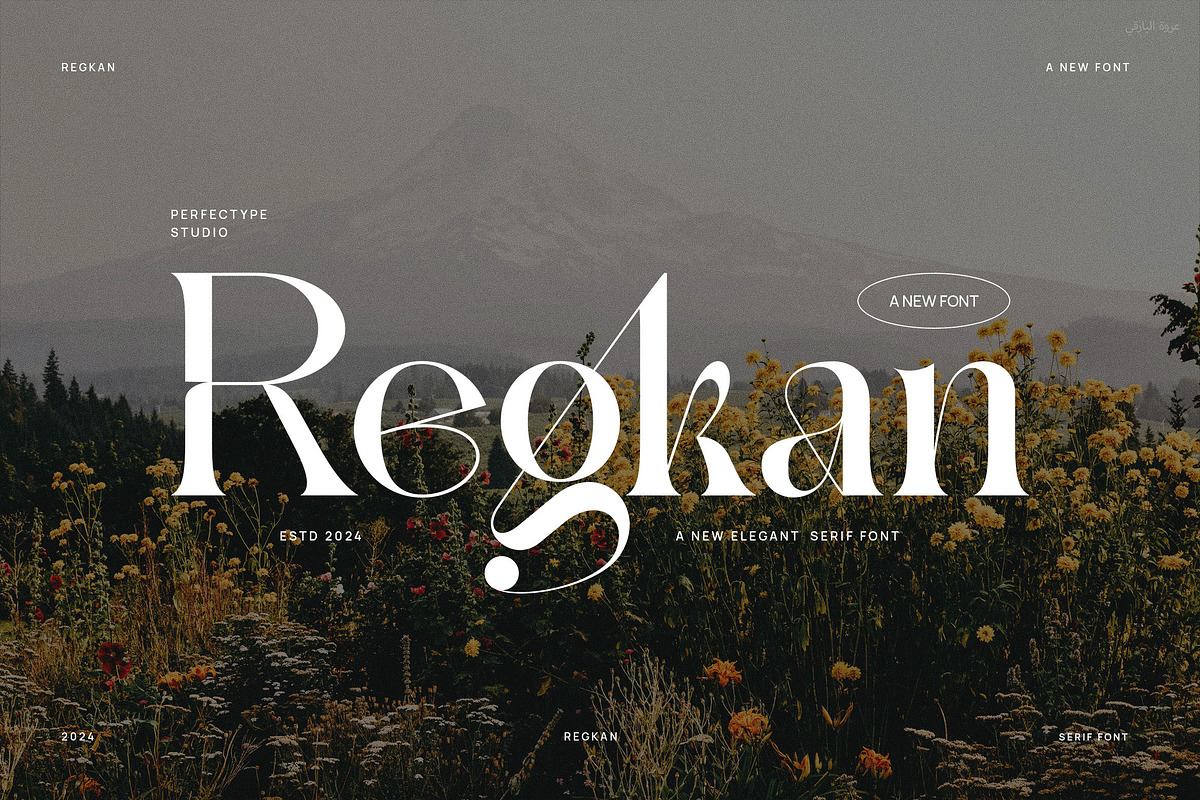
Regkan Elegant Ligature Serif Font T Free Download is a luxurious and sophisticated serif typeface featuring stylish ligatures and high-contrast letterforms. Perfect for fashion branding, wedding invitations, magazine headlines, and upscale packaging, this font brings timeless elegance to any creative project.
With its graceful curves and designer-focused ligature options, Regkan Elegant Ligature Serif Font T Free Download helps you create polished, high-end visuals with ease. Whether you're crafting a minimalist logo or a refined editorial layout, Regkan adds a modern classic touch that feels both artistic and professional. Test it out in your next mockup—then upgrade to a commercial license when you're ready to bring your vision to life.